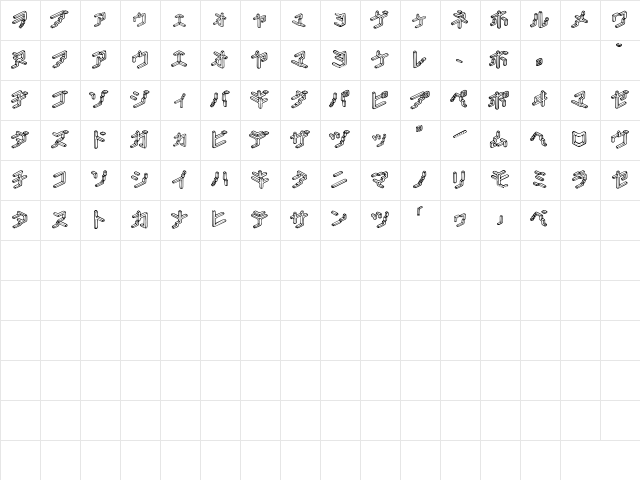
Glace KATAKANA Regular
Design Context for Glace KATAKANA Typeface
Glace KATAKANA is a composed and adaptable typeface that performs quietly and consistently across a wide range of design contexts.